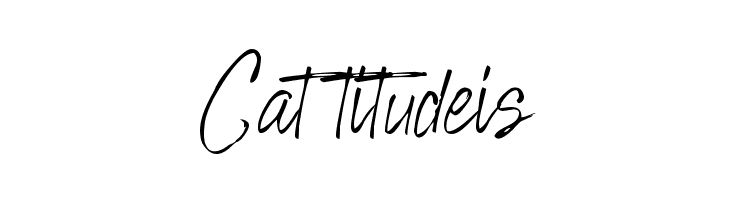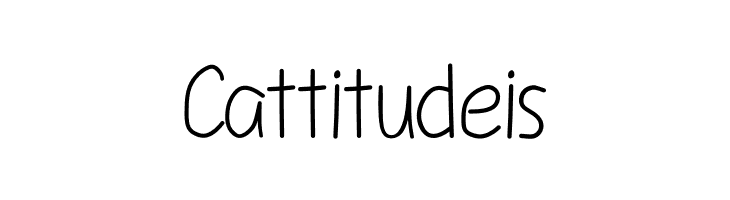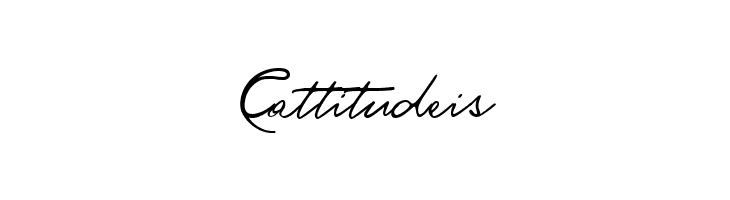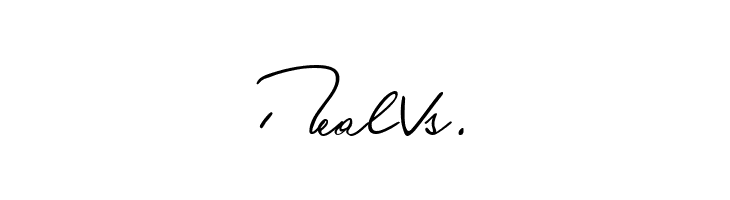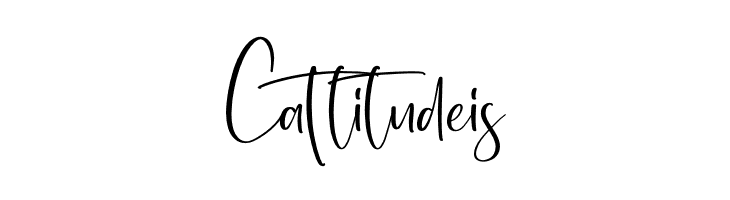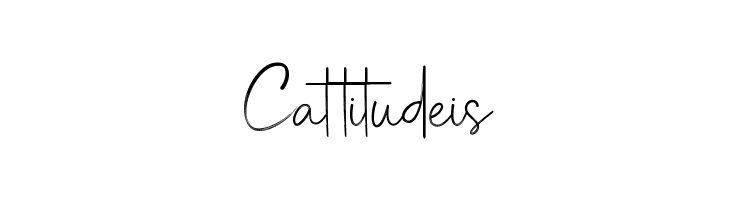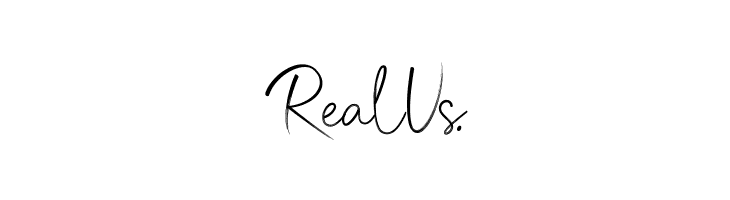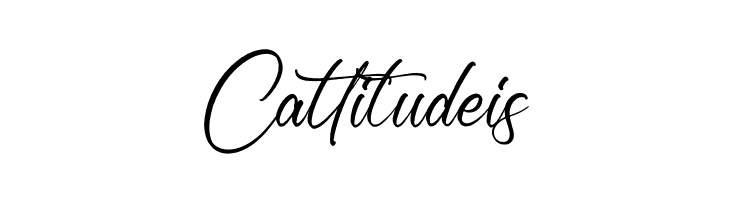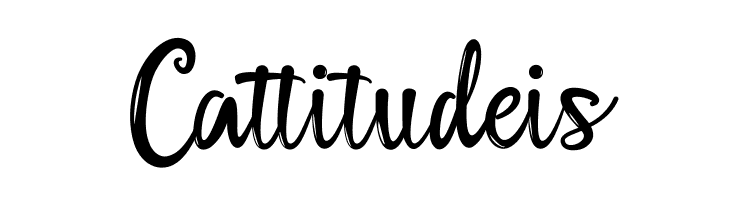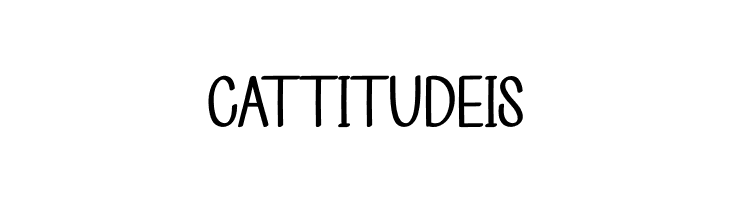
( Fonts by Din Studio )
Bold, dynamic handwritten script font.
( Fonts by Des Gomez )
A playful, handwritten font with a whimsical and casual style.
( Fonts by Insan Nurbahagia )
A playful, bold script font with a handwritten style and decorative loops.
( Fonts by UI Creative )
An elegant, flowing script font with high contrast and graceful curves.
( Fonts by Creassion Studio )
A delicate, whimsical font with thin lines and elegant curves, perfect for artistic projects.
( Fonts by Damarletter )
A romantic and elegant script font with flowing, cursive letters.
( Fonts by Ibrahima Studio )
Elegant handwritten script font.
( Fonts by UI Creative )
A modern, elegant script font with flowing, cursive letterforms.
( Fonts by Jadatype )
A modern, elegant handwritten font with fluid, continuous strokes.
( Fonts by Mozyen Studio )
Elegant cursive script with a handwritten feel.
A fluid and expressive handwritten style with a personal touch.
An elegant, flowing script font with smooth, cursive lines and graceful curves.
( Fonts by Fran Board - fransfont.weebly.com )
A playful, handwritten font with fluid strokes and a casual feel.
( Fonts by Scratchones )
A playful, handwritten font with rounded, consistent strokes and a casual feel.
( Fonts by scratchones )
A bold, playful script font with a handwritten style.
( Fonts by Erlina Graphic )
A casual, handwritten script with tall, narrow, and rounded letterforms.
( Fonts by Maulana Creative )
Playful handwritten script font.
( joellecharming.com )
A whimsical, elegant cursive font with intricate loops and swirls.
( Fonts by Timur Type )
Handwritten, playful sans-serif with tall, narrow letters.
A playful, modern handwritten font with medium contrast and dynamic slant.
( Fonts by Khurasan™ )
Playful handwritten font.
( Fonts by VinType )
A modern handwritten font with a fluid, cursive style.
A playful, casual handwritten font with smooth, flowing lines.
A playful and casual handwritten font with fluid strokes and a dynamic style.
A graceful, handwritten script font with elegant curves and fluid connections.
( Fonts by Aeletter )
Elegant, high-contrast script with a handwritten, calligraphic style.
( Fonts by Beautypes )
A graceful handwritten script font.
( Fonts by RantautypeStudio )
Elegant, thin handwritten script with a natural flow.
( Fonts by Skiiller Studio )
A bold, handwritten font with a dynamic and energetic style.
( Fonts by Vunira Design )
A lively, flowing script font with an elegant, handwritten style.
( Fonts by Vunira Design )
A lively, handwritten font with expressive curves and dynamic strokes.
( Fonts by BrandSemut )
Casual handwritten script with smooth, rounded strokes and a friendly appearance.